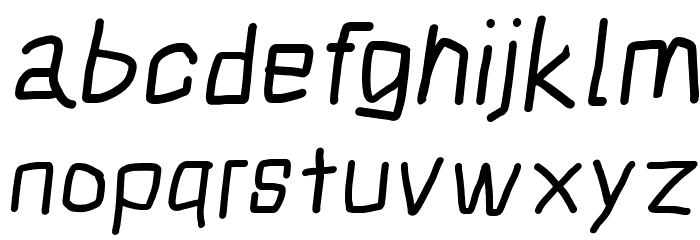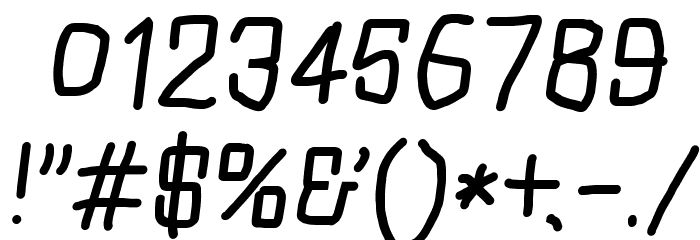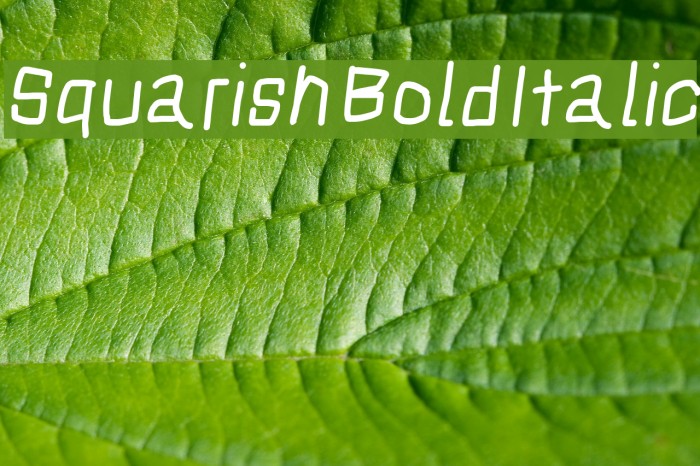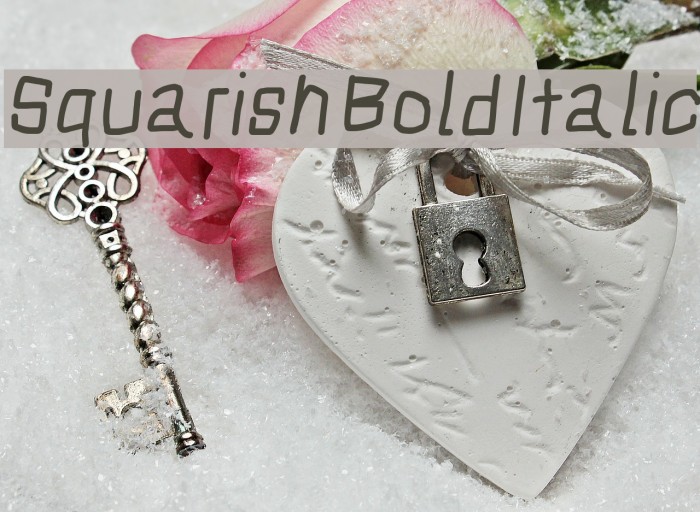
Squarish Bold Italic Font
This font features a bold and italicized style with a distinctly modern and geometric appearance. The characters are slightly condensed, giving them a compact look. The strokes are consistent in thickness, providing a medium contrast that enhances readability while maintaining a unique, edgy aesthetic. The letters have a squarish form with rounded edges, which adds a touch of softness to the overall design. This combination of boldness and geometric form makes it suitable for a variety of creative applications.
A bold, italic, and geometric font with medium contrast and a modern style.
- Proposed Projects: Ideal for branding projects, modern posters, tech-related designs, and creative headlines.